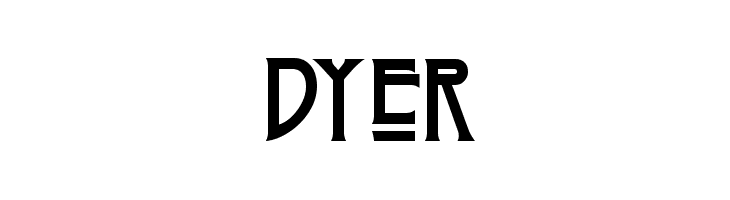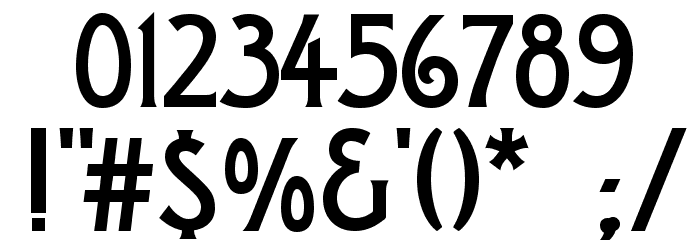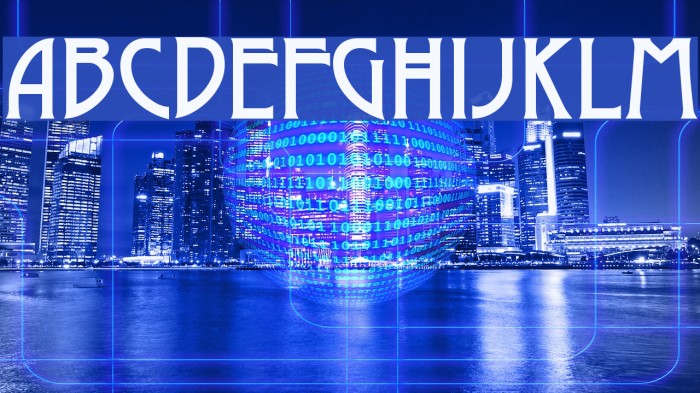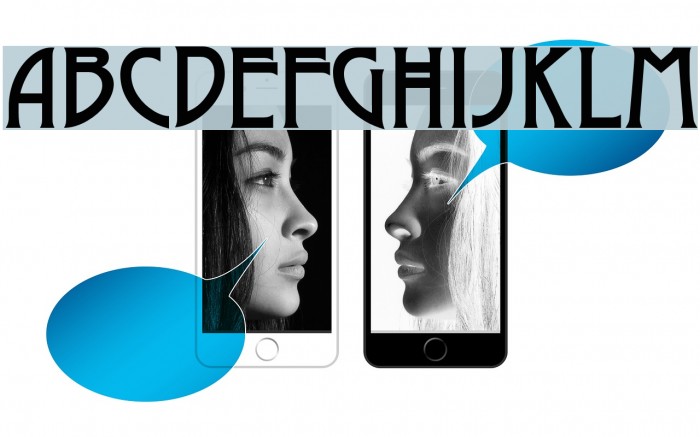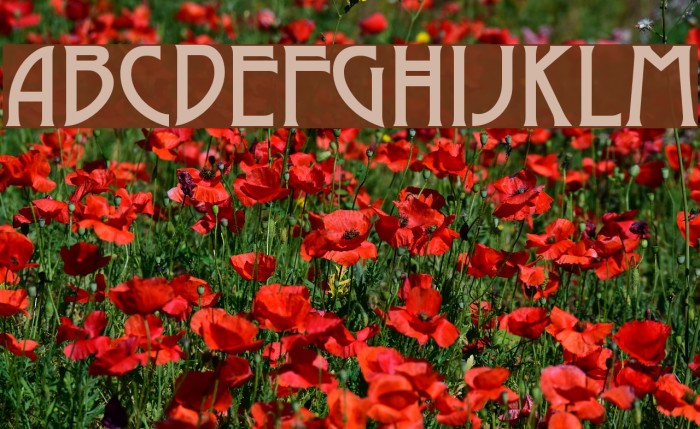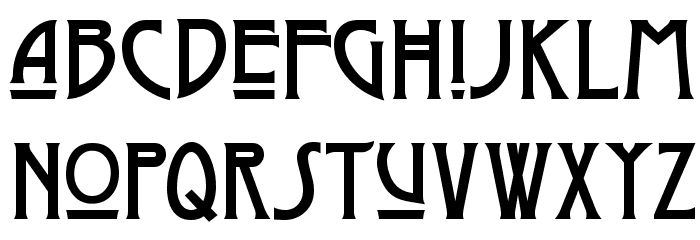
Dyer Font
Dyer Description
This font features a unique and artistic design with a modern twist. The characters are bold and slightly condensed, giving them a strong presence. The strokes are consistent in thickness, providing a medium contrast that enhances readability while maintaining a decorative flair. The uppercase letters have a distinct angularity, while the lowercase letters mirror this style with a slightly softer touch. The numerals are clear and well-defined, matching the overall aesthetic of the alphabet. Special characters are creatively integrated, maintaining the font's cohesive look.
| Proposed Projects | Ideal for branding, posters, and headlines where a strong, artistic impression is desired. |